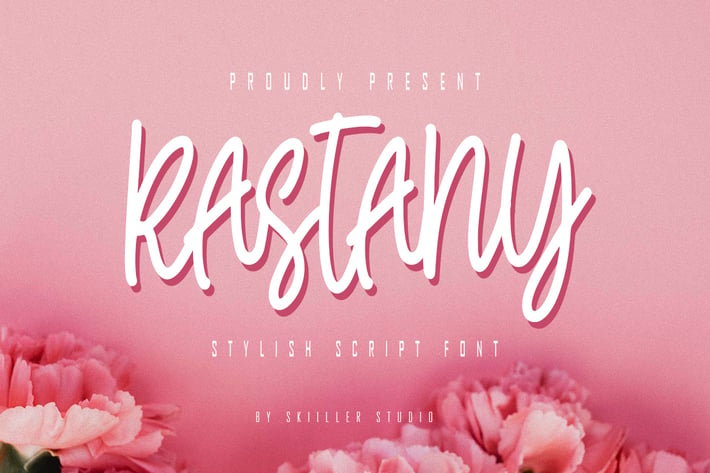
Rastany - Stylish Script Font
Rastany Stylish Script Font with a modern and cool style designed with many features more encoded PUA and more than , suitable for promotion, business, company, clothing, wedding and more